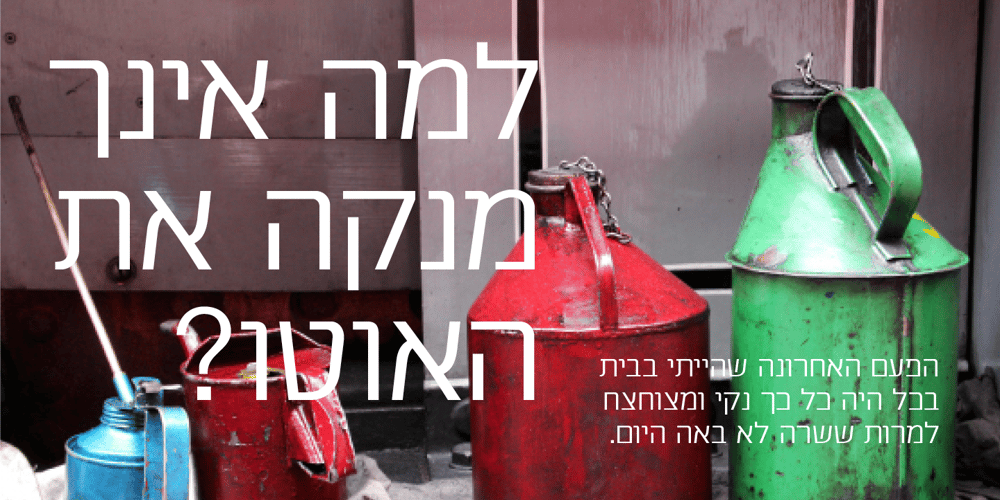
Aplikazia MF
Aplikazia MF font
Aplikazia MF Font Family was designed by Zvika Rosenberg and published by Masterfont. Aplikazia MF contains 11 styles and family package options. A practical font family with 11 weights for all your needs: headlines, body text, signage etc. This font family is a working horse with high legibility at small sizes.OpenType ProExcellent support for Niqqud. All marks are programmed to fit each glyph’s shape and width. OpenType Pro includes new advanced features like Dagesh Hazak, ShevaNa, etc and wide letters.Best used with Adobe InDesign CC that support complex Hebrew text.Please check these advanced features in this link:tinyurl.com/2fbkuy95